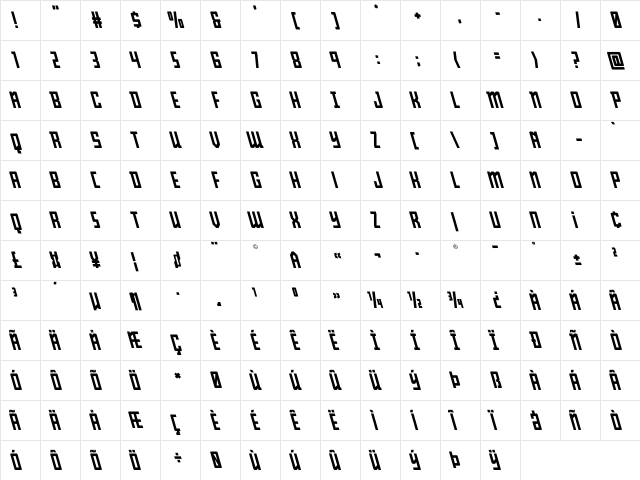
Young Patriot Leftalic Italic
Design Context for Young Patriot Leftalic Typeface
Young Patriot Leftalic is a composed and adaptable typeface that performs quietly and consistently across a wide range of design contexts. The slanted form adds forward momentum and visual energy.
Pro Tip: Try Young Patriot Leftalic for annotation and caption copy alongside an upright companion — the contrast in angle creates a dynamic but ordered typographic system.